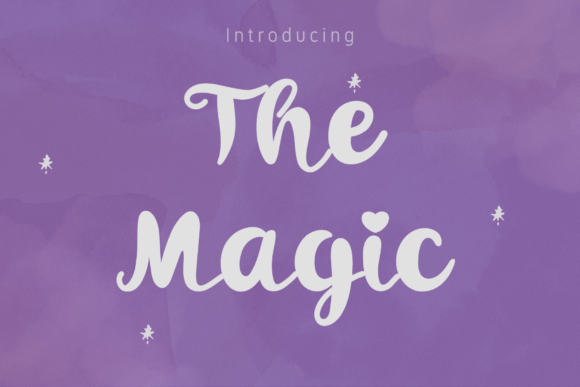
Unleash the enchanting magic of "The Magic Font," a captivating script font that'll transform your designs into groovy works of art! Picture the wonder and delight as your words dance across your creations, leaving a trail of smiles and admiration wherever they go. With its playful curves and enchanting strokes, "The Magic Font" is the ultimate choice for adding a touch of whimsical charm to your projects.
Say goodbye to mundane designs and embrace the extraordinary with "The Magic Font." Its captivating style will mesmerize your audience, drawing them into the realm of imagination and creativity. Picture your designs coming alive with a unique personality, capturing hearts and leaving a lasting impression. Whether you're crafting heartfelt wedding invitations, vibrant T-shirts, or eye-catching logos, "The Magic Font" will effortlessly elevate your designs to new heights.
Step into a world of endless possibilities with "The Magic Font." Its versatility knows no bounds, allowing you to explore a myriad of creative endeavors. From tote bags that spread joy wherever they go to hats that make a statement, stickers that add a touch of magic to everyday objects, and cards that carry heartfelt messages, "The Magic Font" is your ultimate design companion. Let your creativity soar and witness the wonders that unfold as your designs take center stage.
Embrace the captivating allure of "The Magic Font" and embark on a creative journey like never before. Its intricate details and enchanting flow will ignite your imagination, inspiring you to create masterpieces that leave your audience spellbound. Whether you're a seasoned designer or just starting your creative adventure, "The Magic Font" is your key to unlocking a world of design magic. Experience the transformative power of "The Magic Font" and let your imagination run wild!